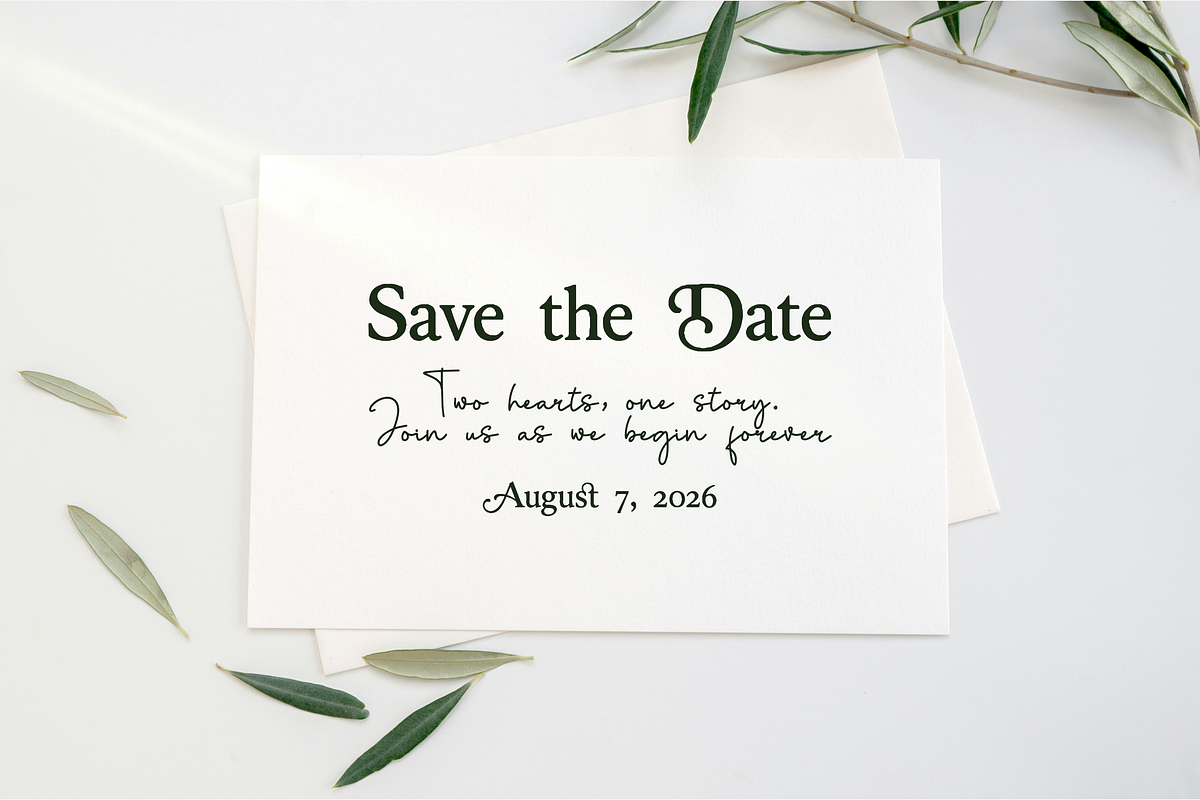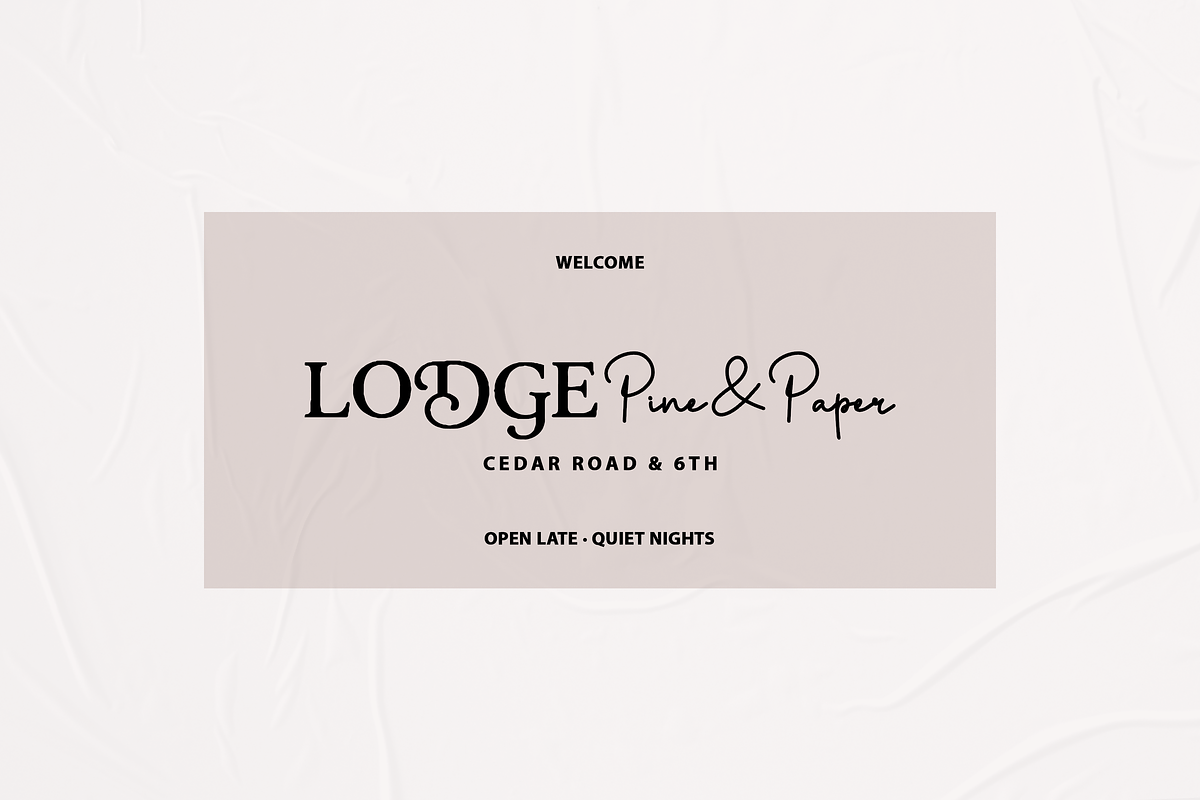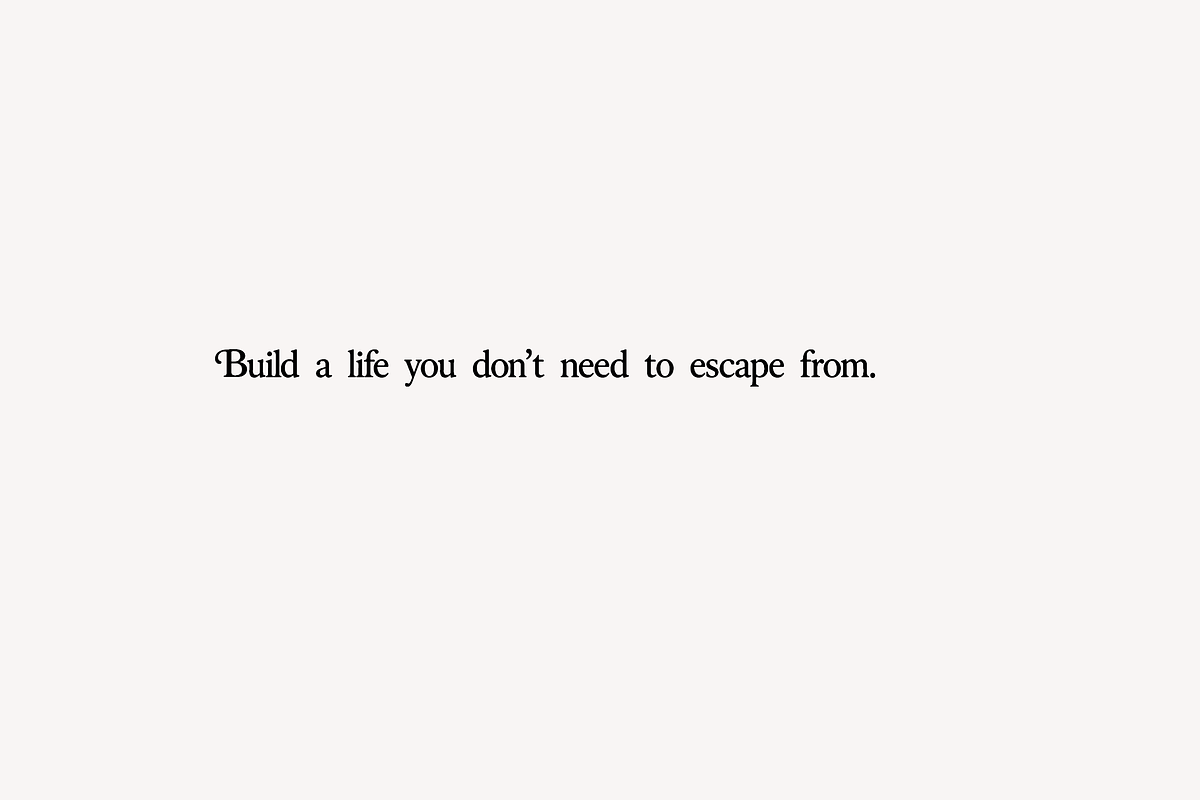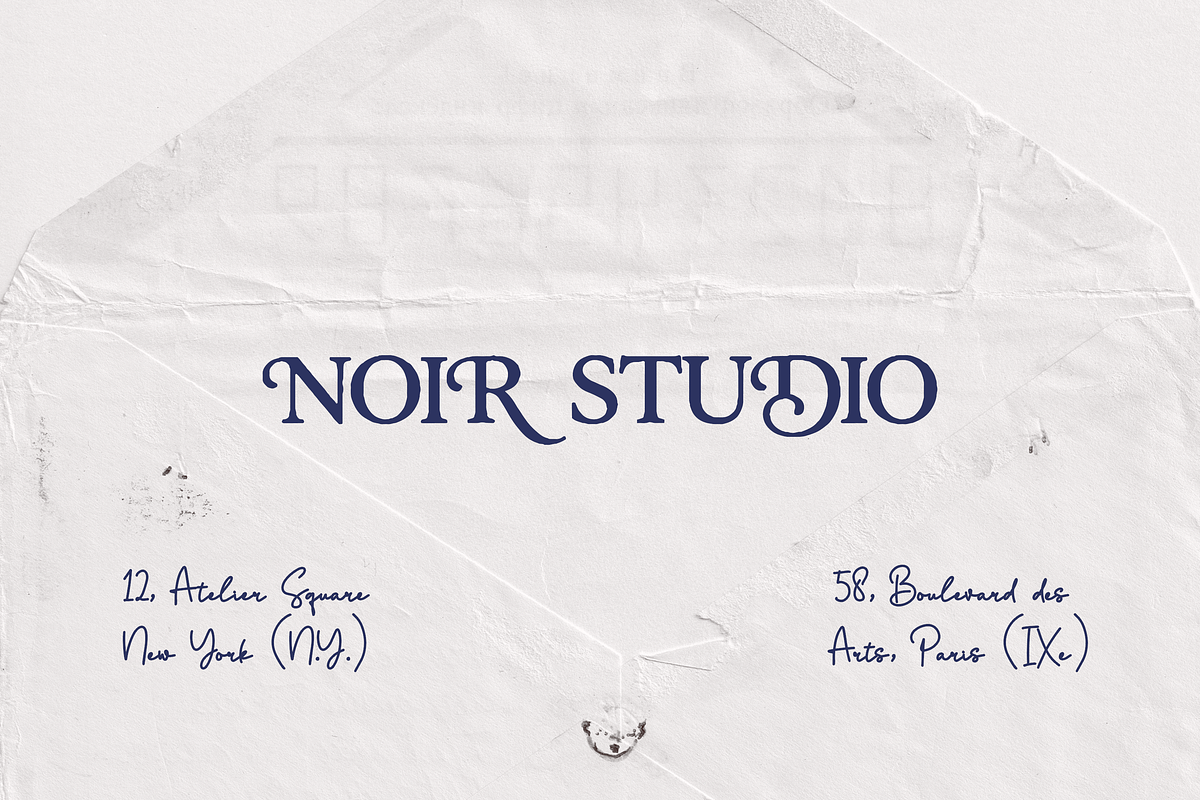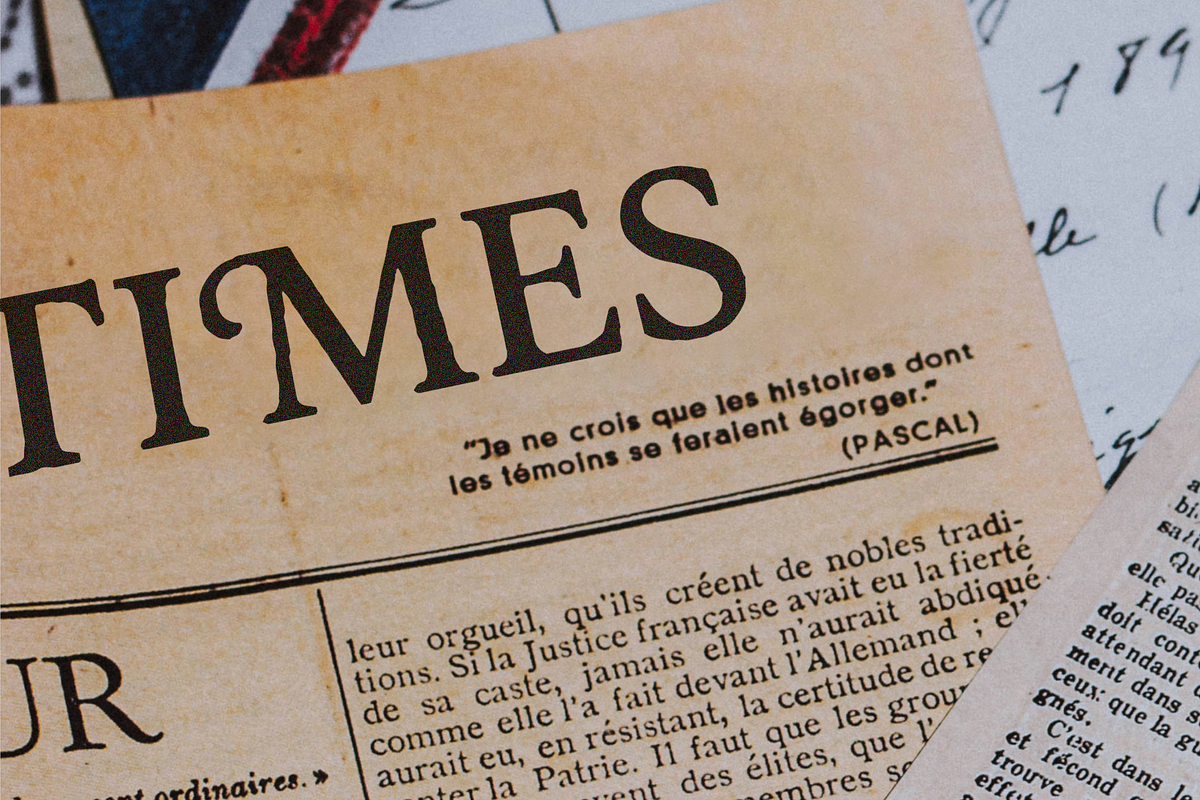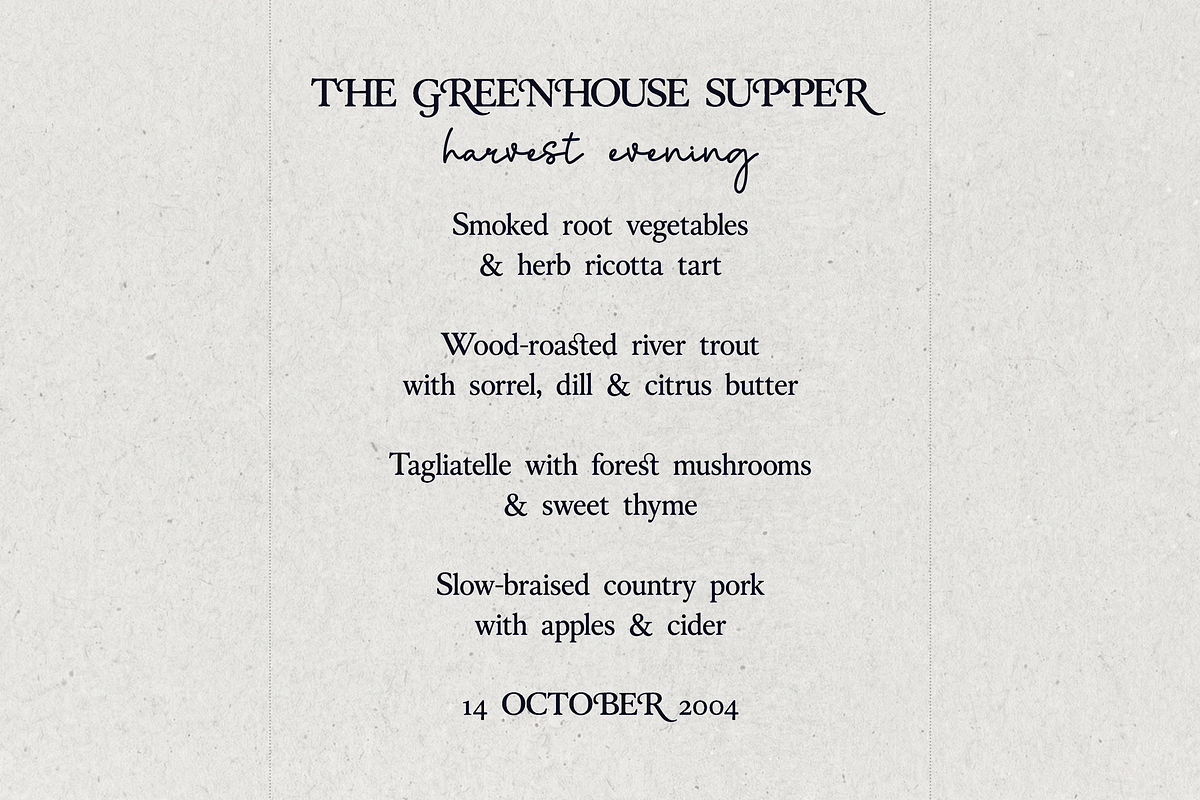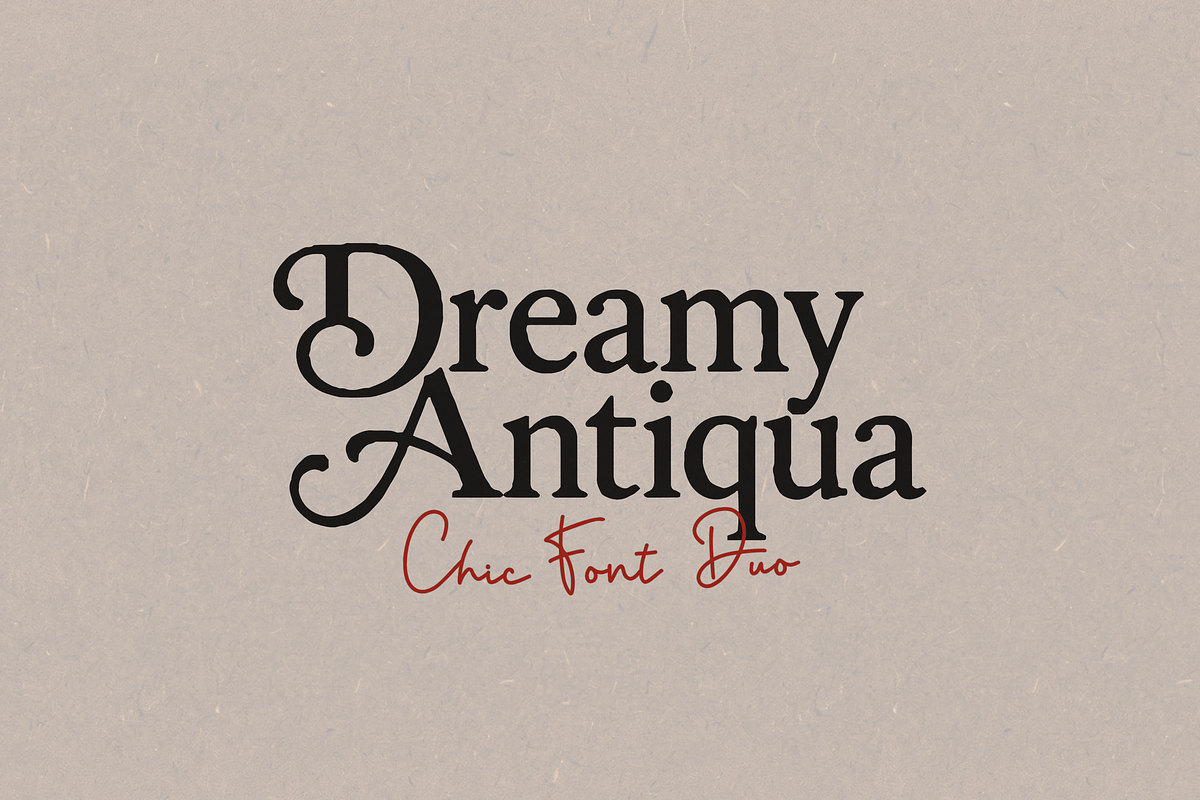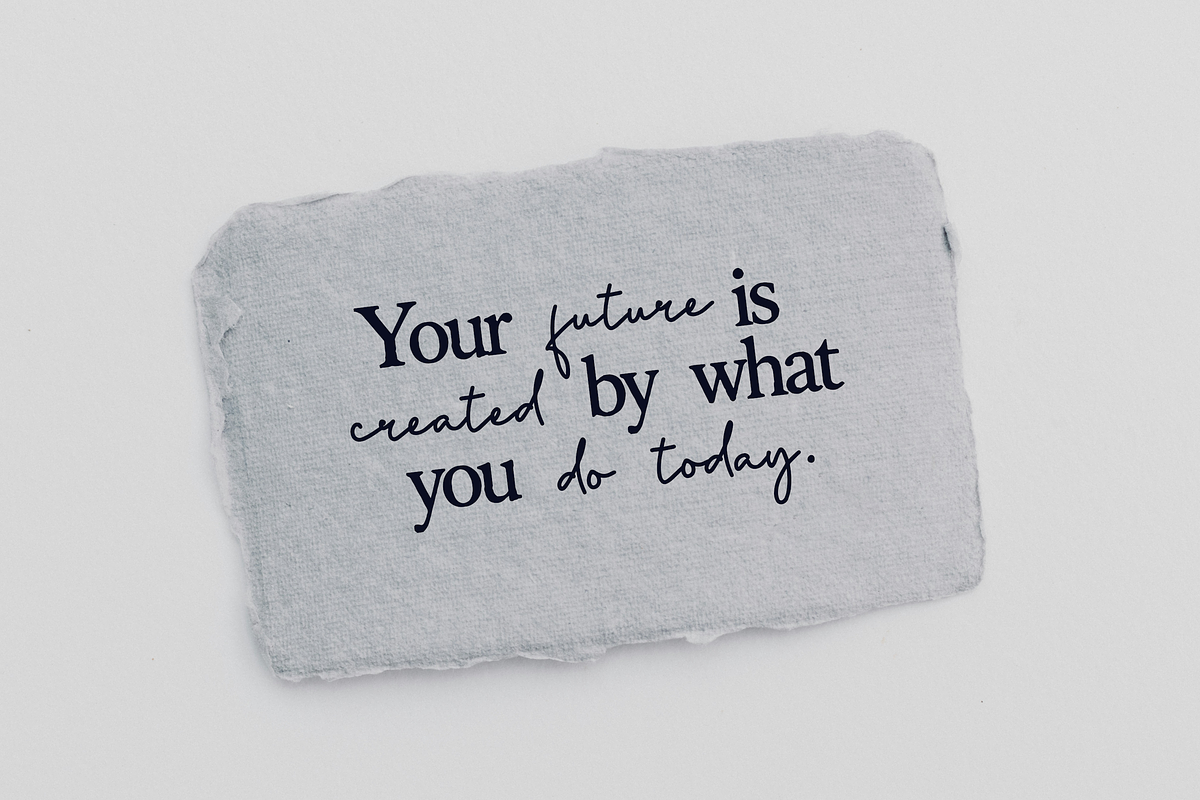
Dreamy Antiqua Serif Script Font Duo
Dreamy Antiqua is a chic serif & script font duo designed for elegant branding, wedding invitations and modern romantic designs.
Great for
- Wedding invitations, save the dates, menus & place cards
- Greeting cards, Valentine’s designs, postcards & love notes
- Logos, boutique branding, labels & packaging
- Quotes, posters, social media graphics, scrapbook & journaling